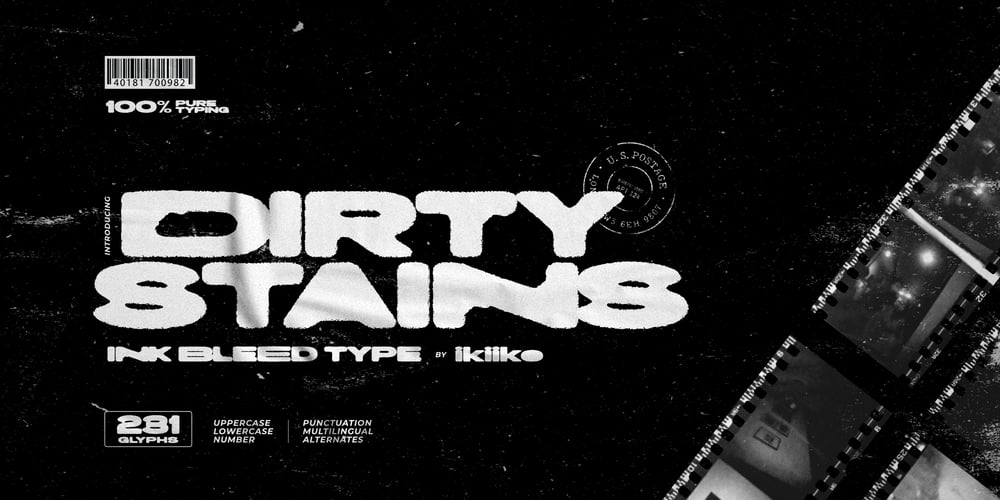
Dirty Stains
Dirty Stains font
Dirty Stains Font Family was designed by Andhika Pradana and published by IKIIKOWRK. Dirty Stains contains 1 styles and family package options. Introducing Dirty Stains – Ink Bleed Type, created by ikiikoDirty Stains embracing the fusion of ink and structure. Each character exudes the wild energy of city streets, and the ink spill effect blurs the distinction between chaos and creativity while encapsulating the spirit of resistance and rebellion.Get also a good offer & FREEBIE at our site : www.ikiiko.comEnjoy our font and if you have any questions, you can contact us by email : ikiikowrk@gmail.com